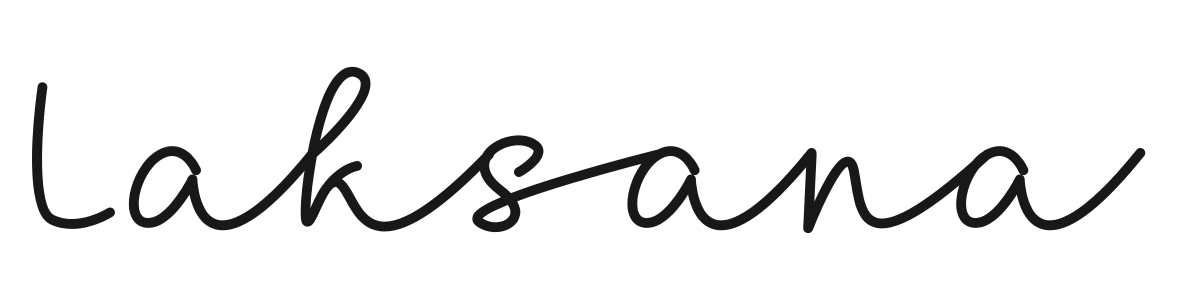
Laksana
Laksana is a light, monoline handwritten face by Mohamad Fahrul Anggoro with the flowing, unhurried quality of a real signature. The thin strokes stay consistent throughout, giving it a feminine elegance that never feels fussy or overworked. It fits naturally into wedding stationery, beauty branding, personal logos, and anywhere a graceful, hand-signed touch matters more than bold impact.